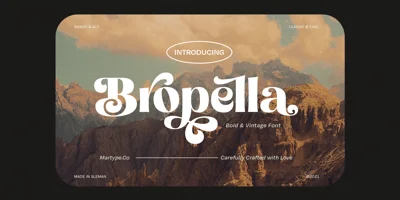
Bropella Font
Bropella Font is perfect for creative agency branding, modern logo designs, tech startup websites, social media graphics, contemporary poster art, digital marketing campaigns, lifestyle brand identities, and innovative product packaging.
Bropella Font is exciting because it combines contemporary design trends with playful sophistication, creating a typeface that perfectly captures the spirit of modern creativity and innovation. Its unique character styling and dynamic proportions make it an ideal choice for brands that want to appear fresh, approachable, and cutting-edge while maintaining professional credibility.
The Bropella Font family includes multiple weight options: Bropella Thin, Bropella Light, Bropella Regular, Bropella Medium, Bropella Bold, and Bropella Black, along with matching italic styles and alternative character sets, providing designers with comprehensive flexibility for diverse creative applications.
When exploring contemporary typography solutions, Bropella Font stands out as an exceptional choice for designers seeking to infuse their projects with modern energy and creative flair. This versatile typeface effortlessly bridges the gap between playful creativity and professional polish, making it particularly effective for brands targeting millennials and creative professionals. The font's distinctive personality shines through in every character while maintaining excellent readability across all media formats.
Creative professionals consistently choose Bropella Font for projects that require a perfect balance of innovation and accessibility. Its carefully crafted letterforms feature contemporary styling elements that work exceptionally well in both digital interfaces and print applications. The font's ability to convey creativity and reliability simultaneously makes it invaluable for comprehensive brand identity systems in the creative and technology sectors.
Whether you're developing startup brand identities, creating digital marketing materials, or designing contemporary product packaging, Bropella Font delivers the modern aesthetic and visual impact that today's dynamic marketplace demands. Its fresh approach to typography ensures your designs stand out while maintaining the sophisticated quality that professional projects require, making it an essential tool for designers working in fast-paced creative environments.